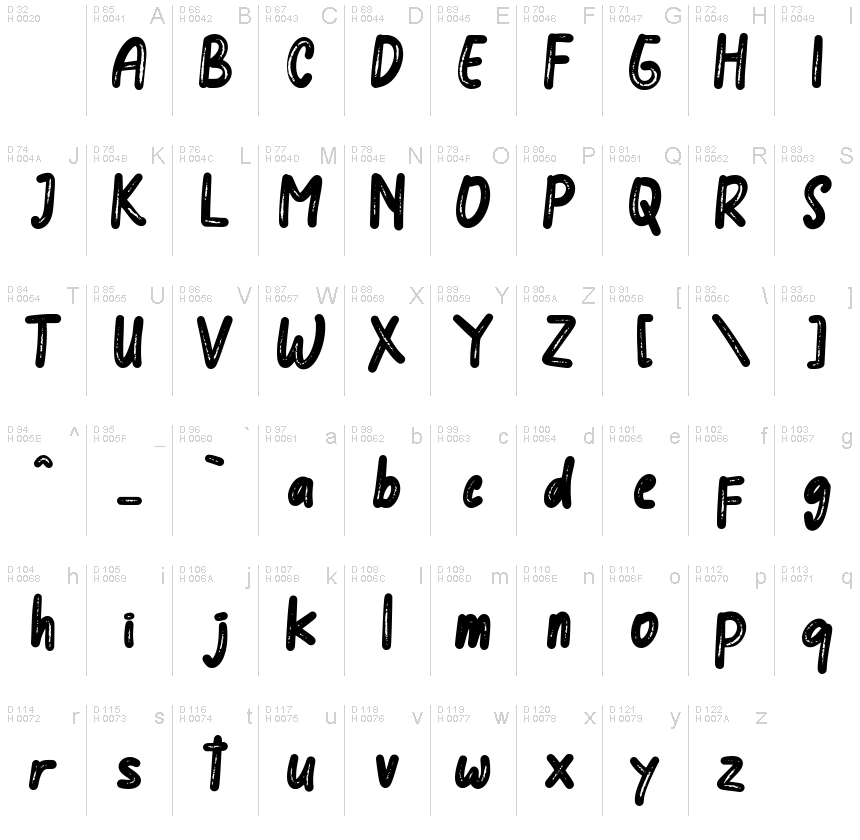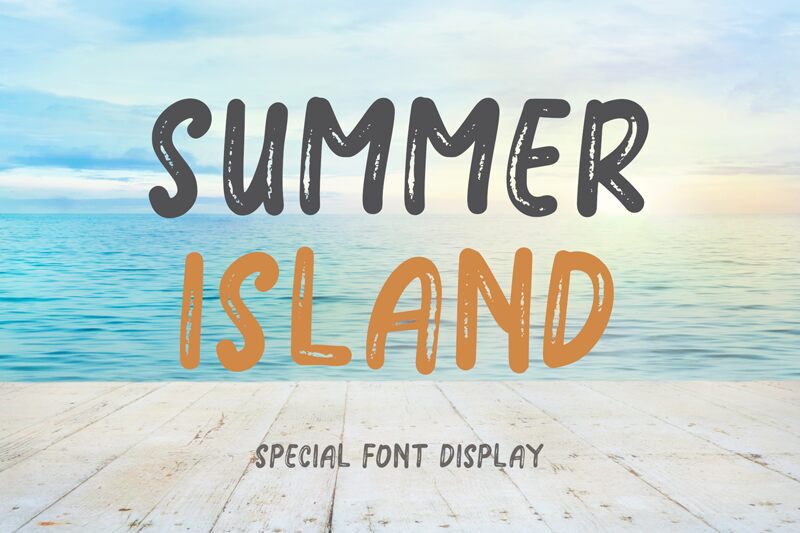
Summer Island
Summer Island, crafted by Yoga Letter, exudes a vibrant and playful spirit reminiscent of sun-soaked getaways. Its brush style captures the essence of free-spirited creativity, with fluid strokes and artsy imperfections that evoke a sense of warmth and approachability. The font showcases an expressive, bold presence that is both inviting and dynamic, making it stand out in any design.
Ideal for beach-themed projects, casual branding, or airy invitations, Summer Island seamlessly infuses designs with a laid-back charm. Its unique character pairs perfectly with whimsical designs or cheerful marketing materials. Whether aiming for modern aesthetics or nostalgic vibes, this font brings an engaging energy that breathes life into any visual narrative.